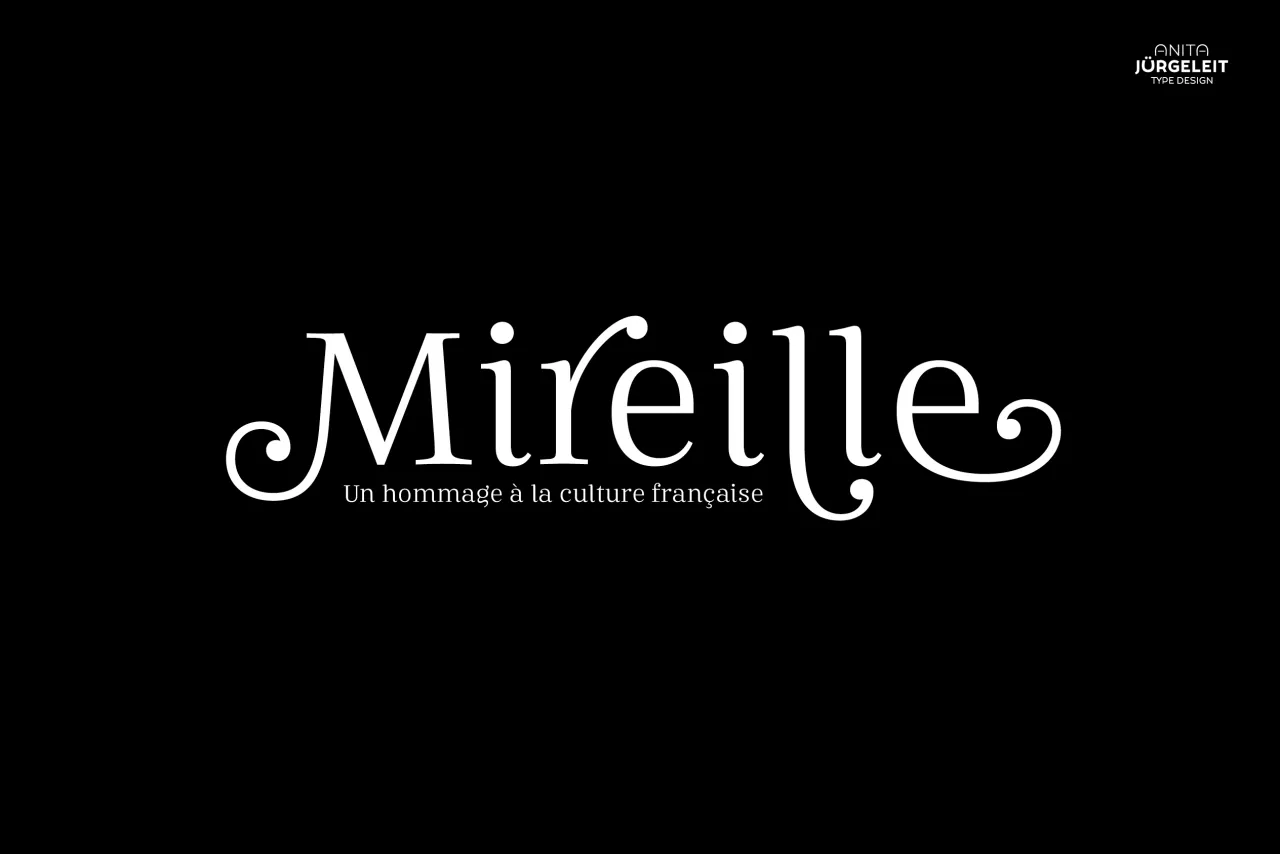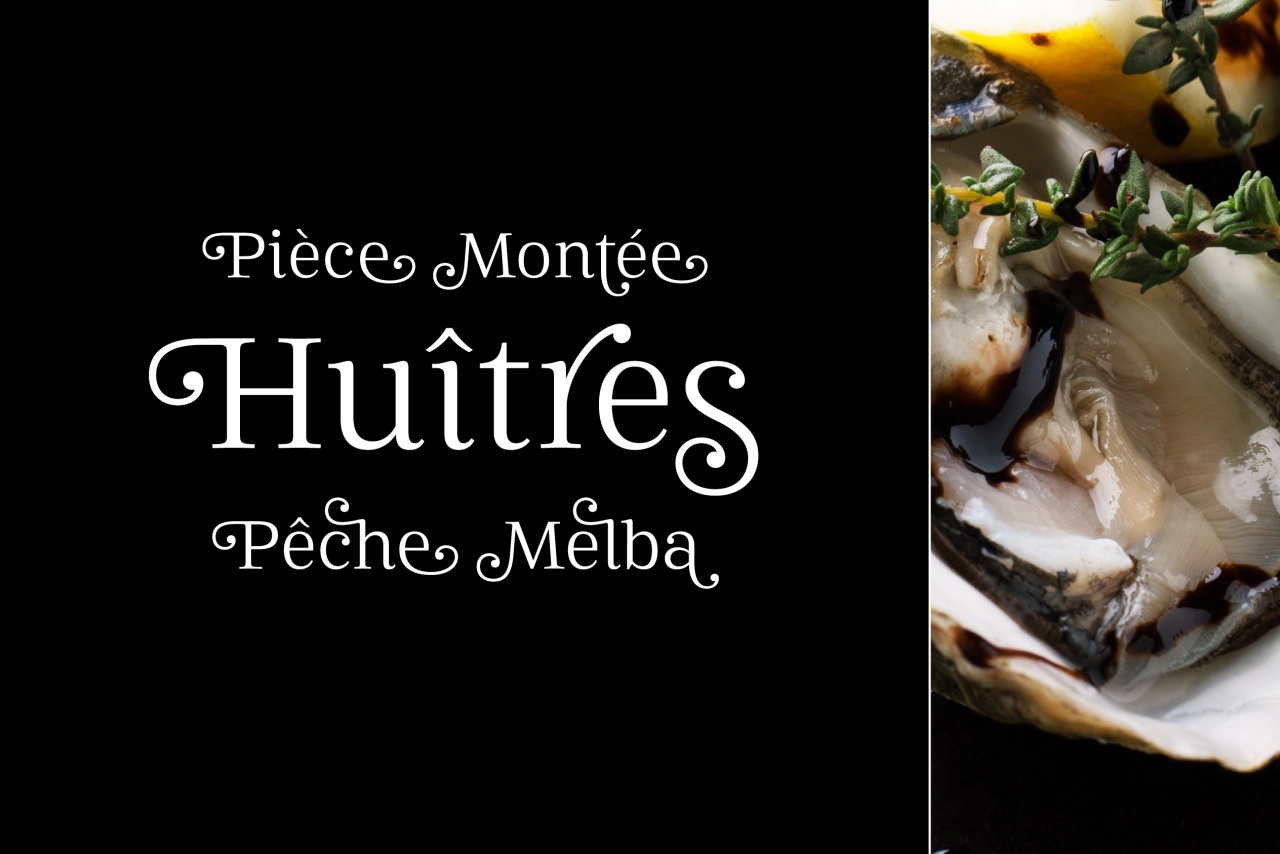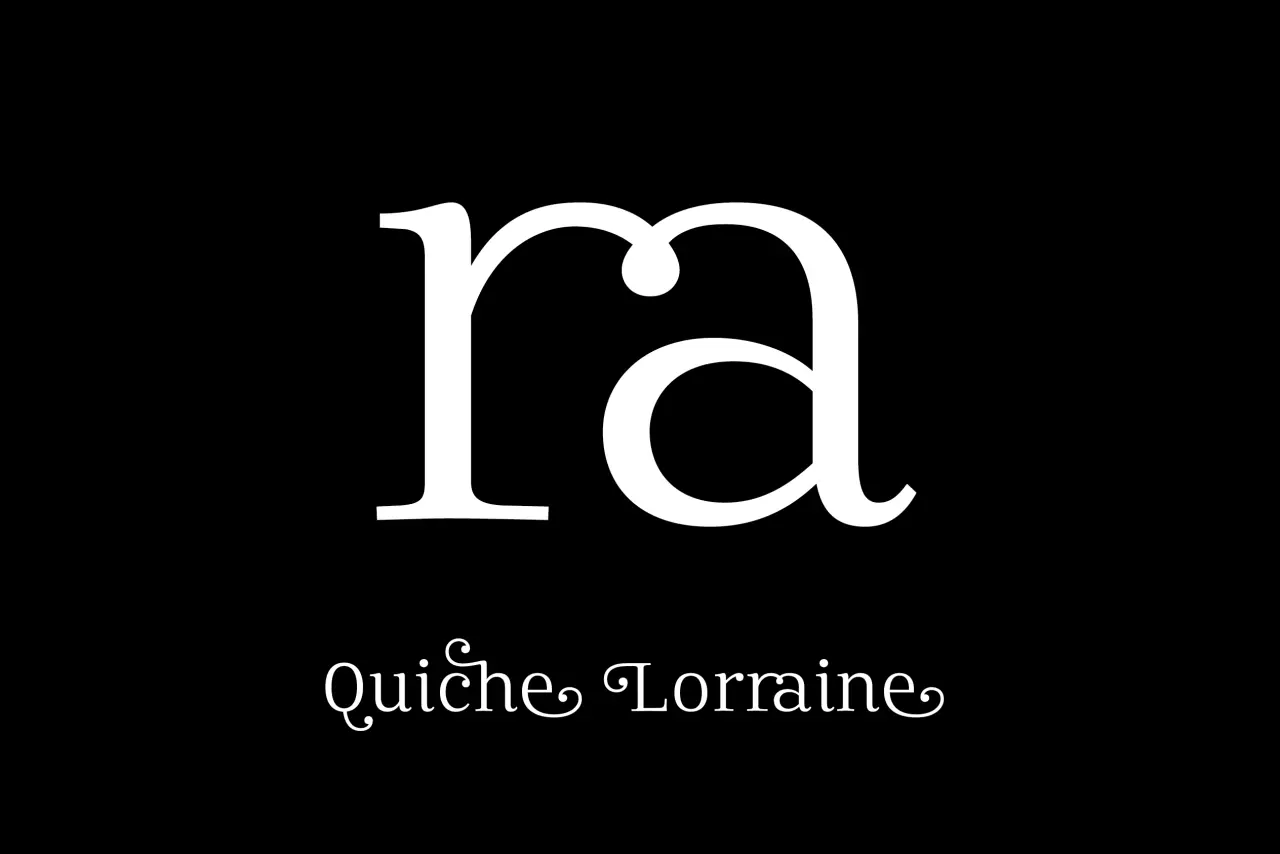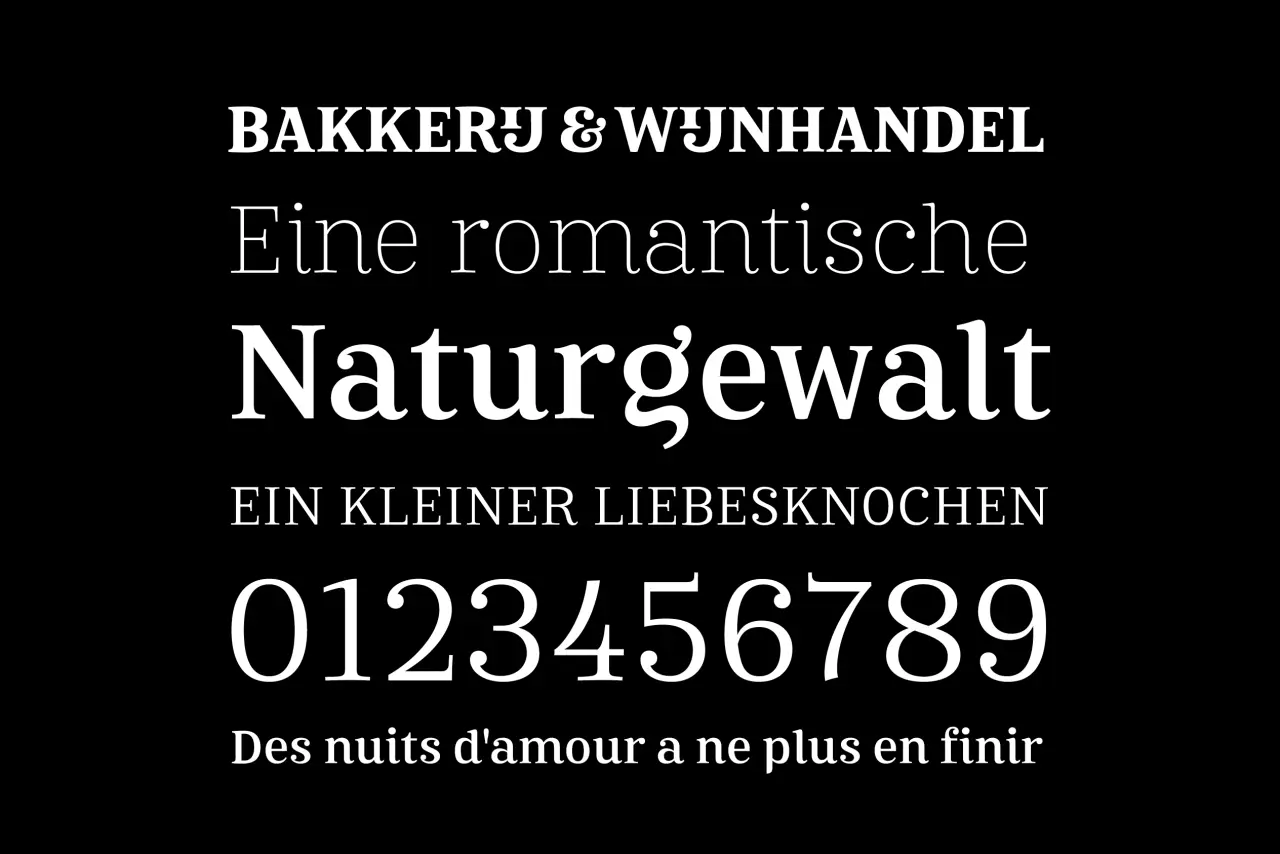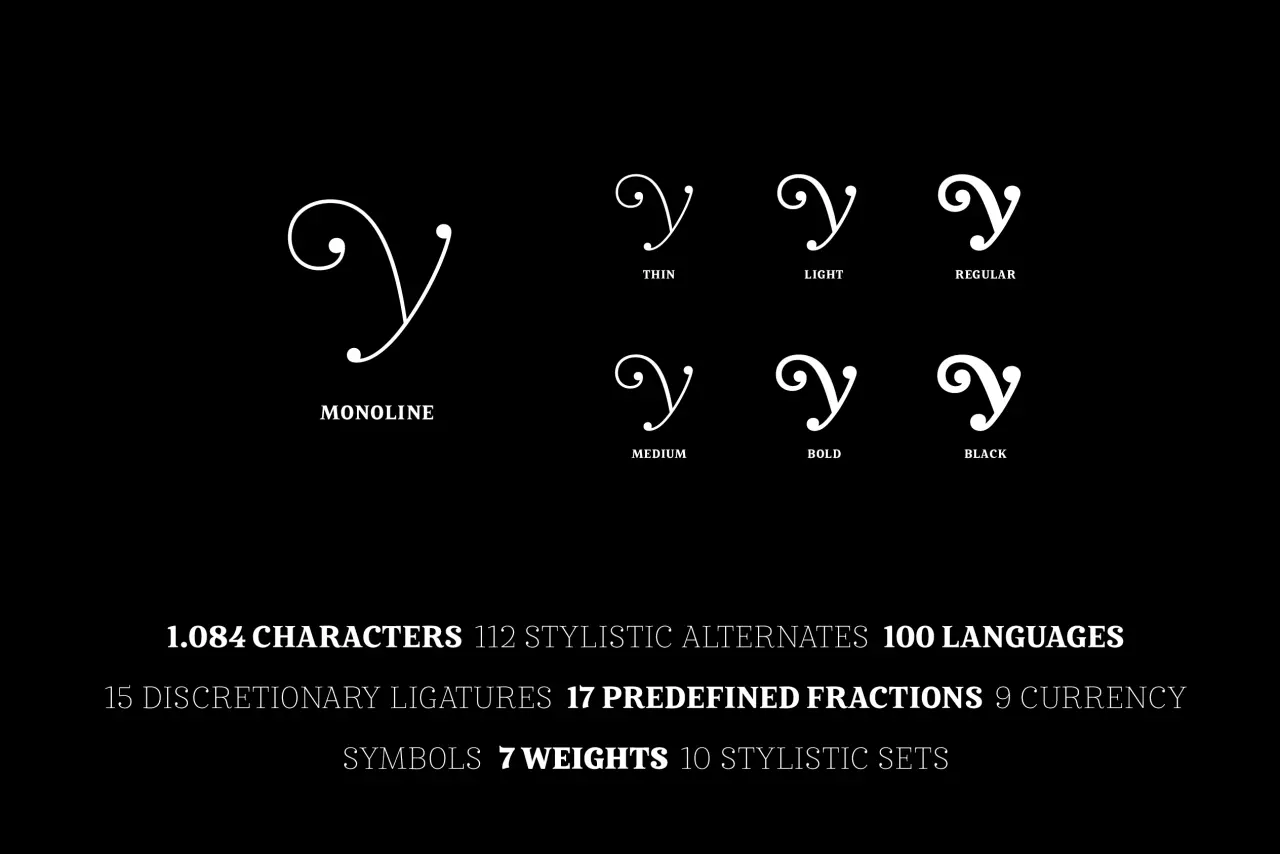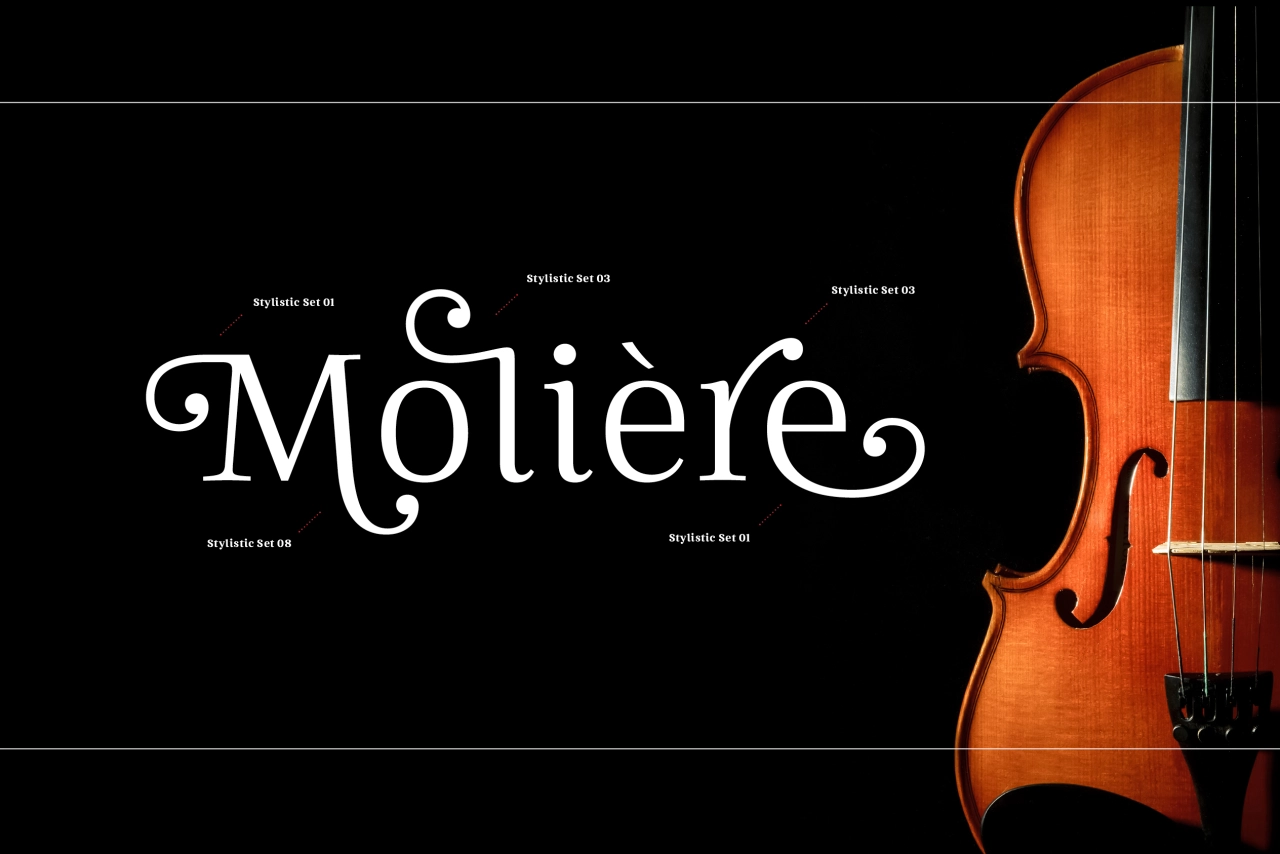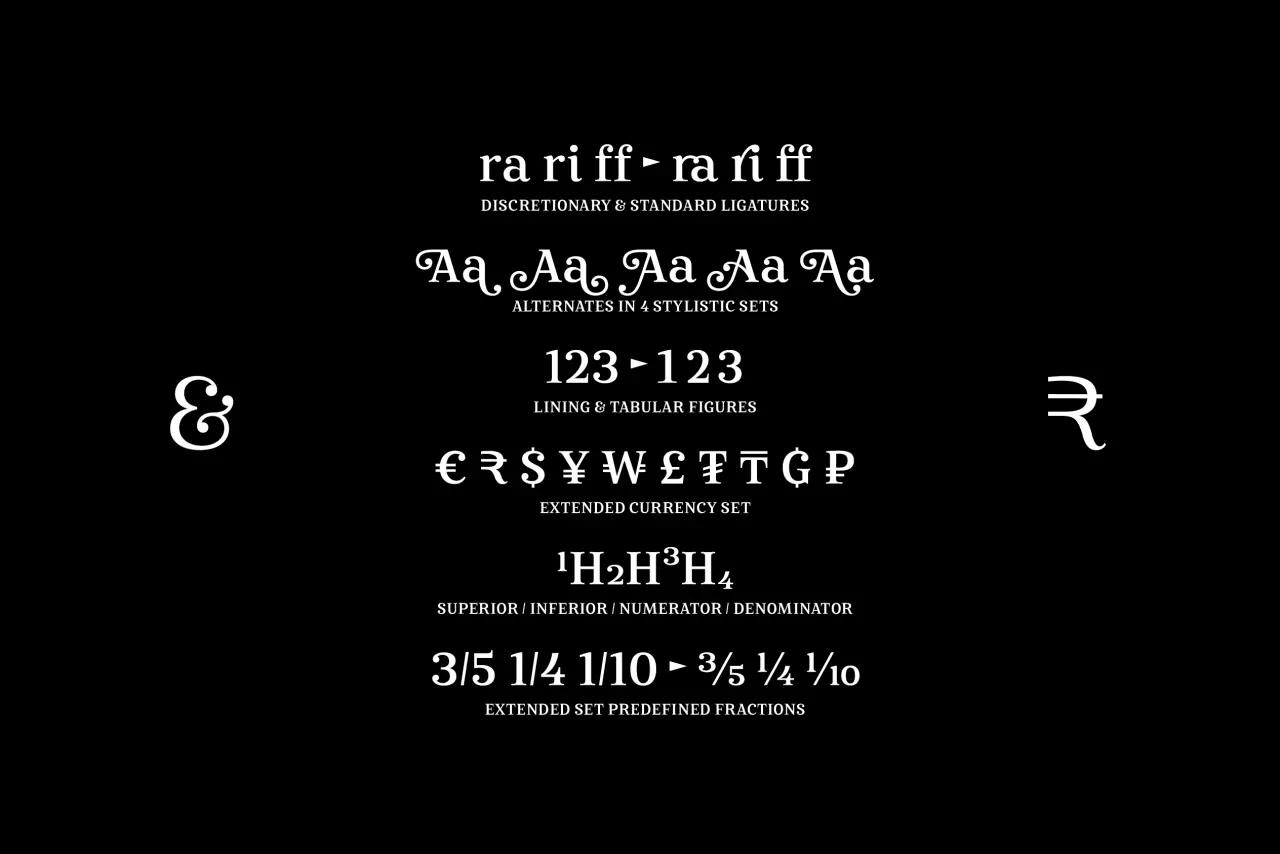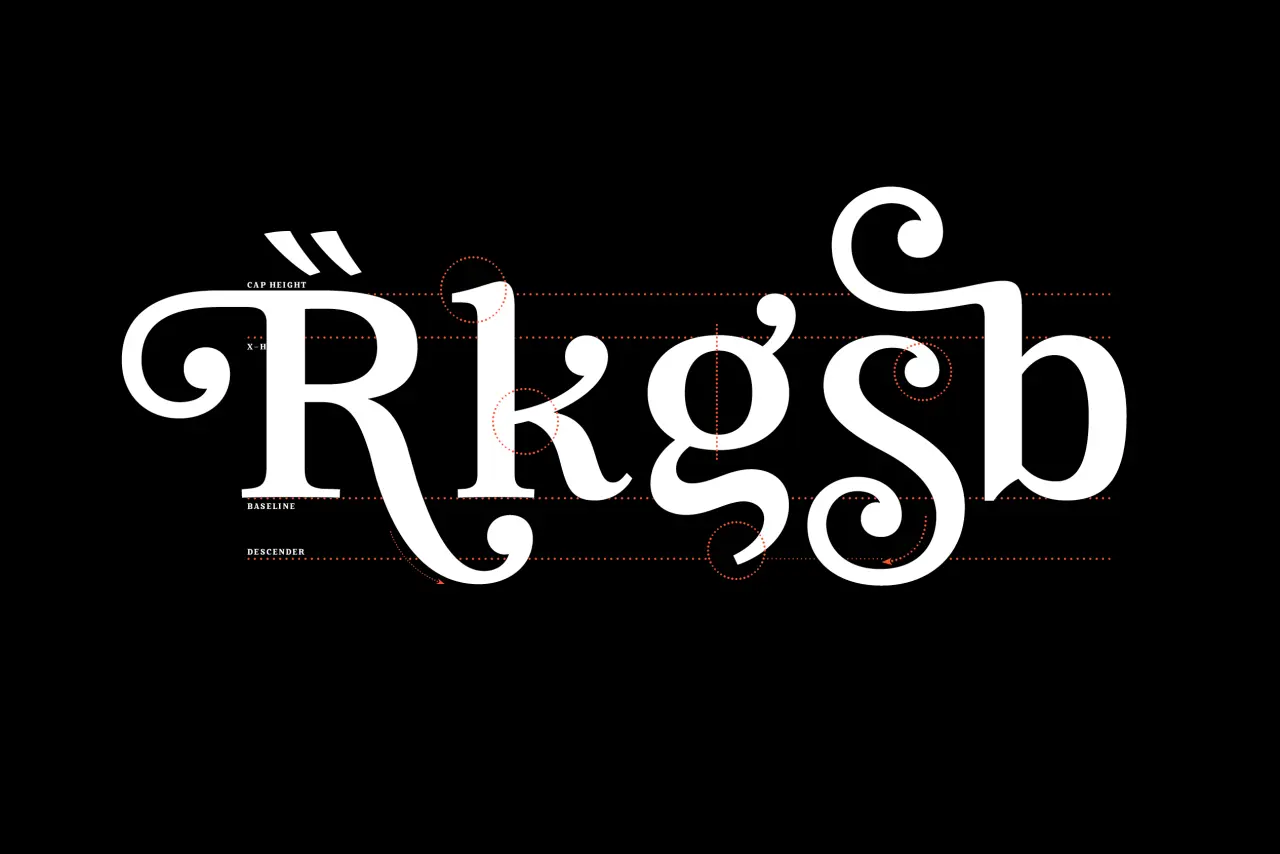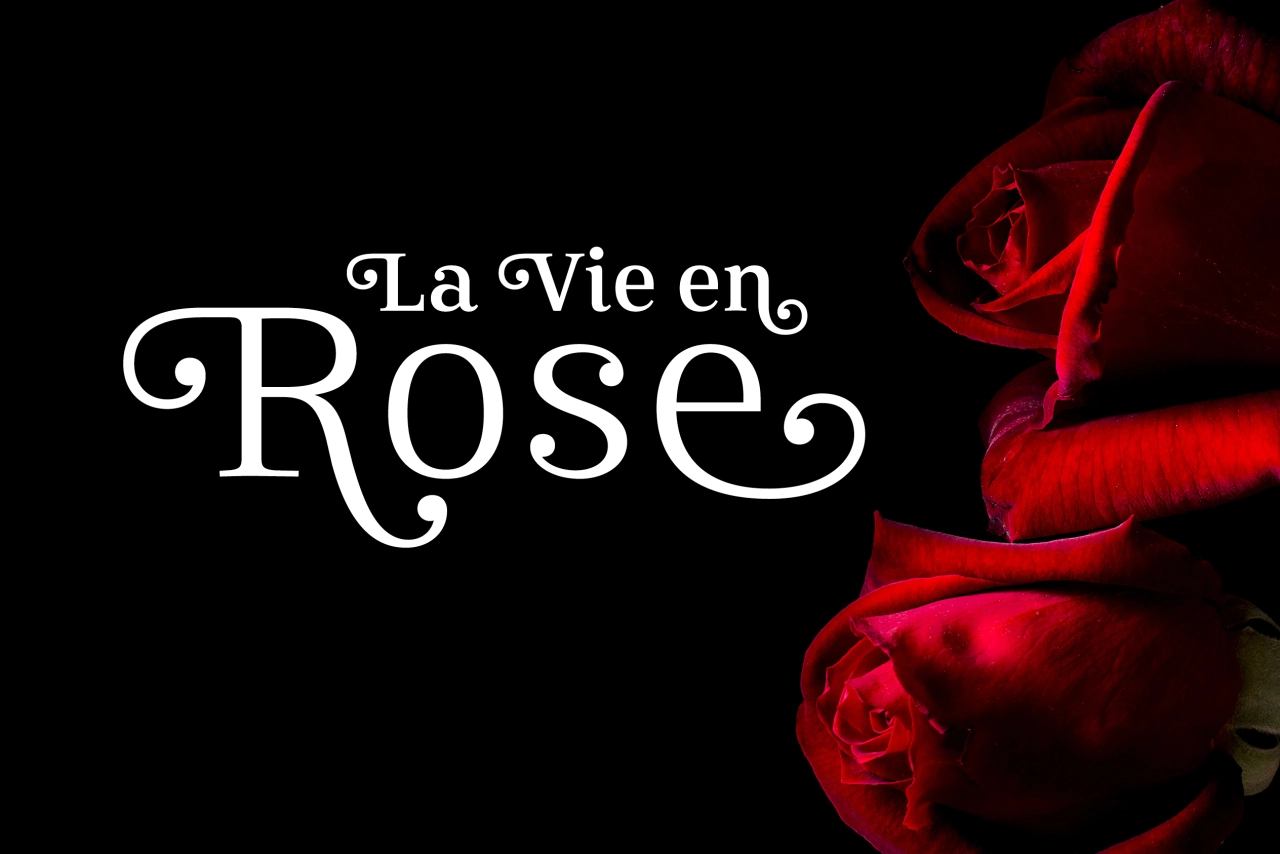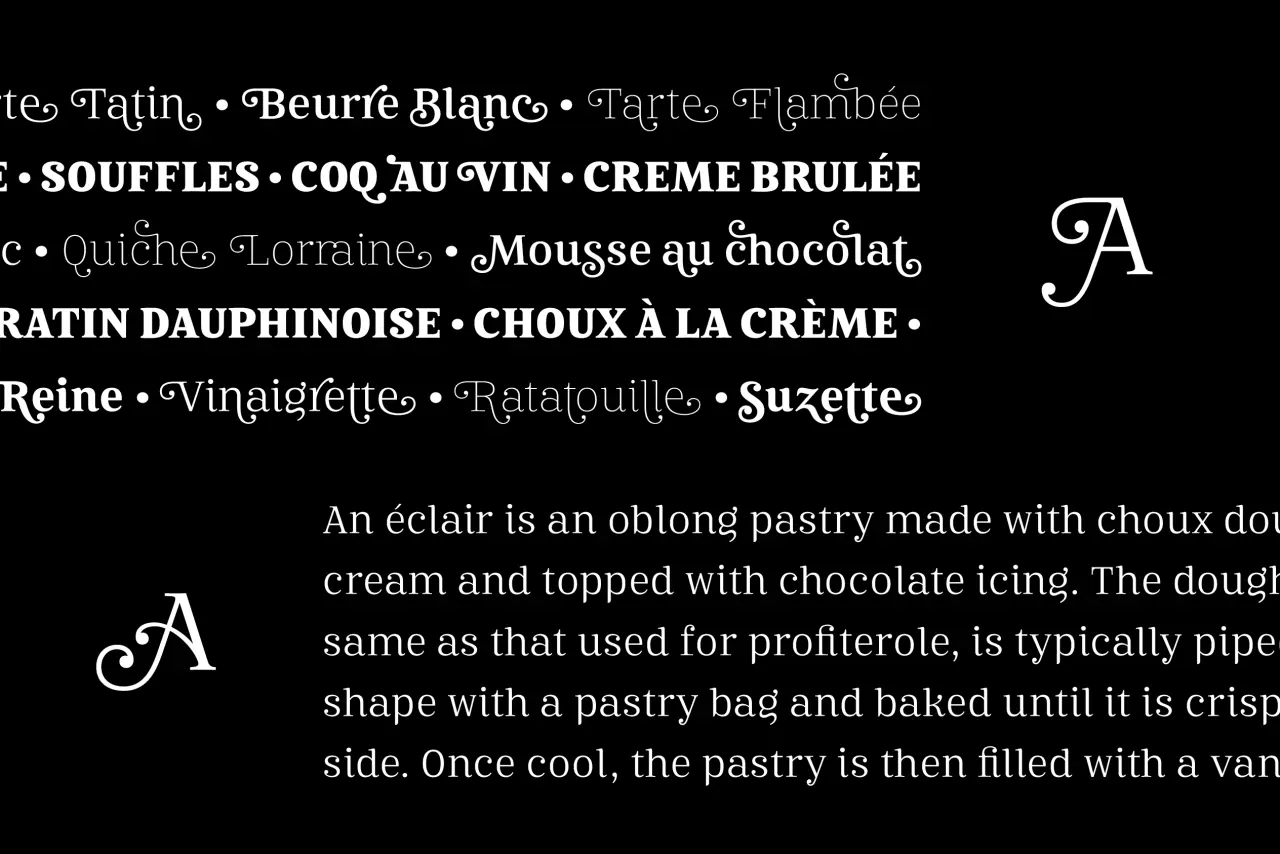
Elegant new typeface Mireille pays homage to French culture
Anita Jürgeleit is an indie type designer living in Hamburg, Germany. After some years of work at URW Type Foundry, she started working independently in 2018 and has just launched her latest type family Mireille, a homage to French culture.
A serif typeface with seven styles, 1,000 glyphs, and over 100 alternates and ligatures, Mireille covers all European languages and includes advanced Open Type features. Anita describes it as "your journey through gourmet food, classical music, opera and wine tours, allowing you to add outstanding elegance to your typography".